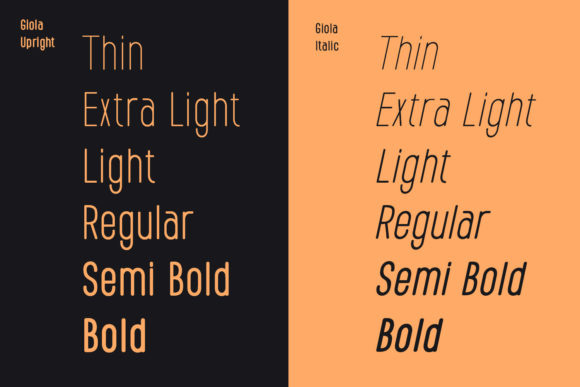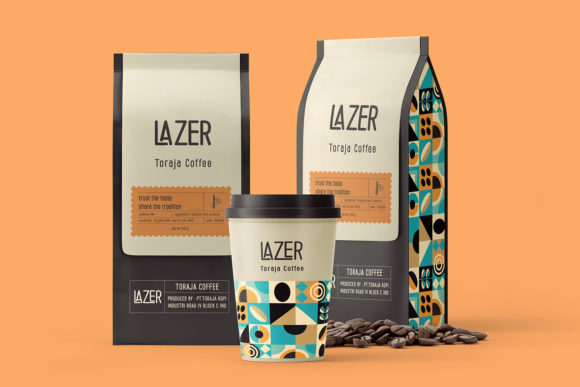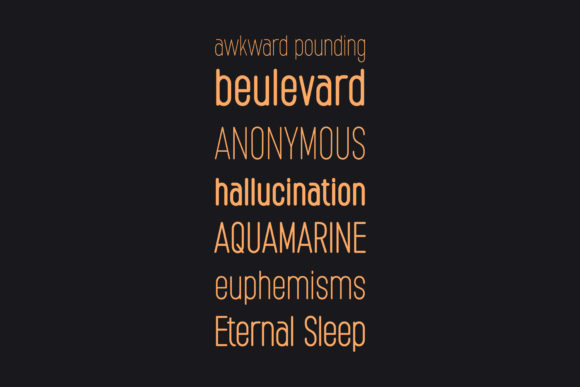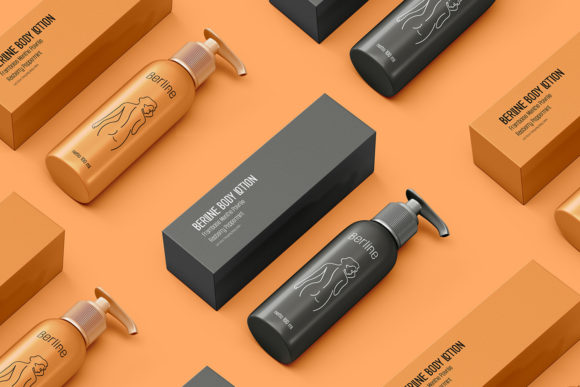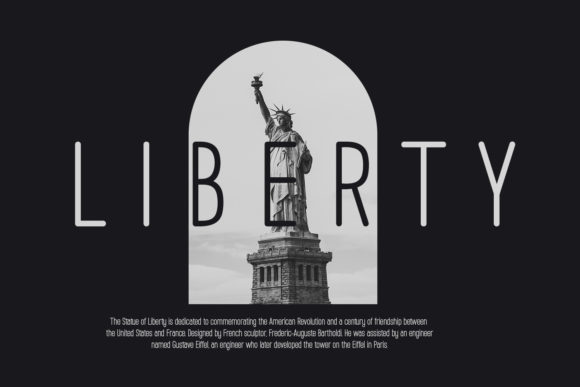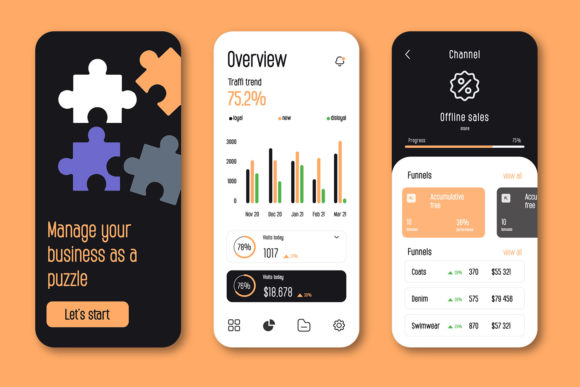
The Designer’s Delight: Giola Font
I’ll never forget the struggle I faced while working on a client’s greeting card project. The design required a modern, minimalist touch, but I just couldn’t find the perfect font. That was until I stumbled upon Giola Font. It was love at first sight! ✨ In this article, I’ll share my experience with Giola, its features, and how to make the most of it in various design platforms.
An Honest Review of Giola Font
What I Love About Giola
- ✨ Modern and minimalist design: Giola’s clean lines and simple curves make it perfect for a wide range of design projects.
- ✅ PUA encoded: Giola’s PUA encoding ensures easy access to all glyphs and swashes, making it a breeze to use.
- 🌈 Versatile: From crafting to digital designing, presentations, and greeting cards, Giola fits in seamlessly.
While Giola is an excellent font, there are a few minor things to keep in mind: ⚠️
- 🤔 Limited serif options: As a sans serif font, Giola might not be the best choice for projects requiring a traditional serif look.
- ⚠️ Some swashes might not work well in all contexts: A little experimentation might be needed to find the perfect combination.
The Story Behind Giola Font
Giola was designed with the modern creative in mind. Its creator aimed to craft a font that would be both versatile and stylish. Inspired by minimalist design principles, Giola’s clean lines and simple curves make it perfect for a wide range of projects.
Q: Is Giola Font suitable for body text?
While Giola is a beautiful font, it’s best suited for headings, titles, and short paragraphs. For body text, consider a font with better readability.